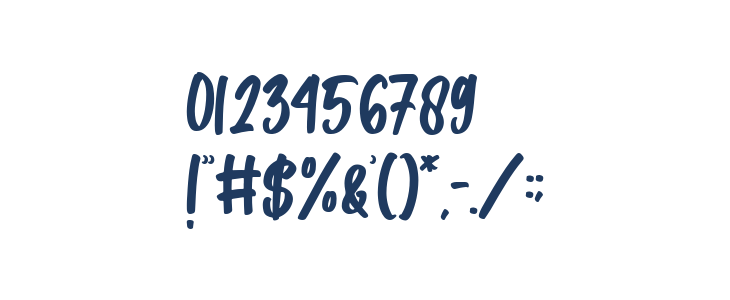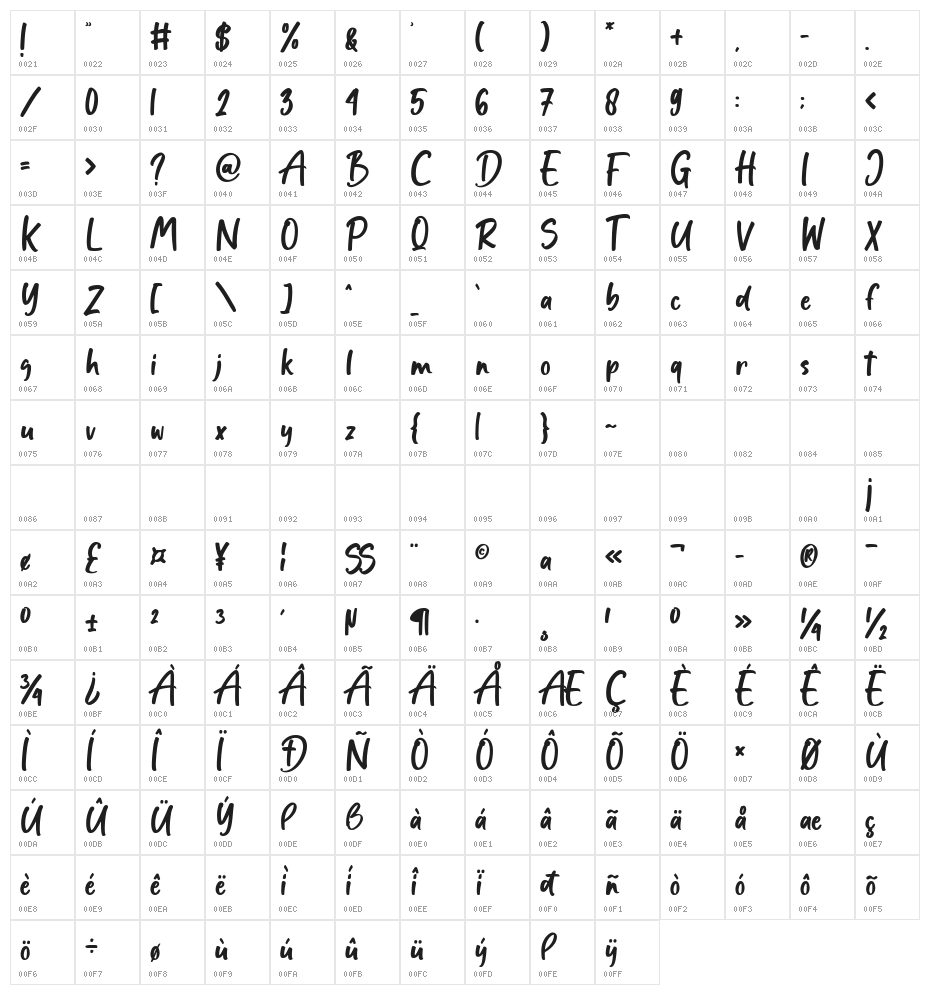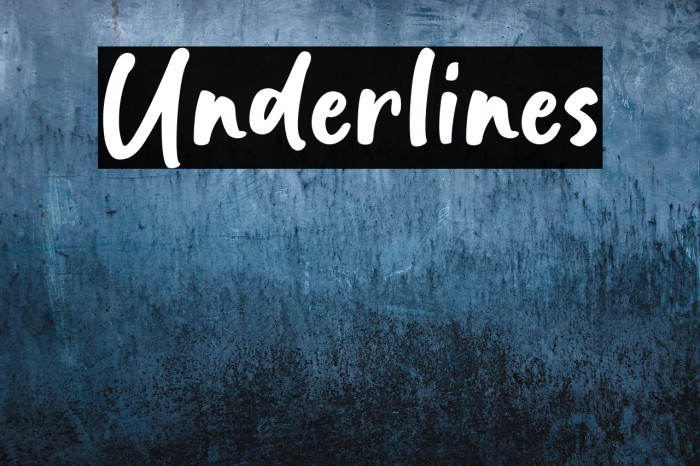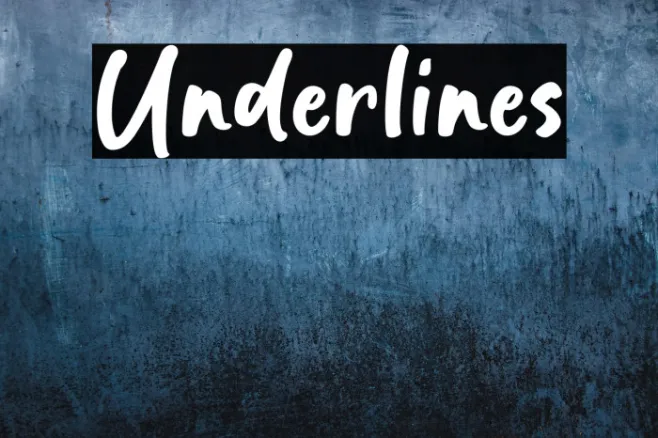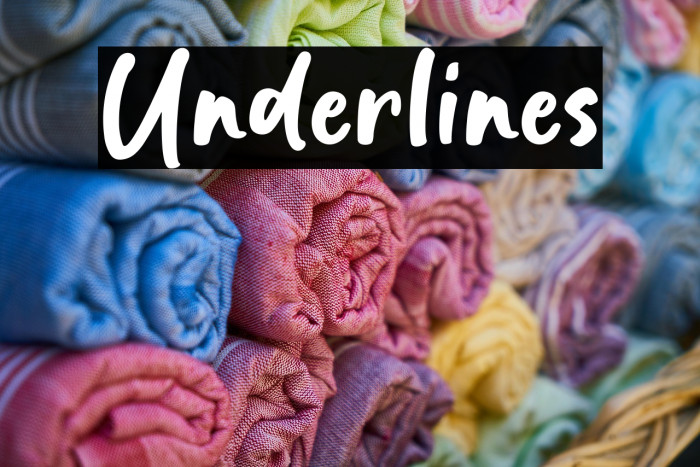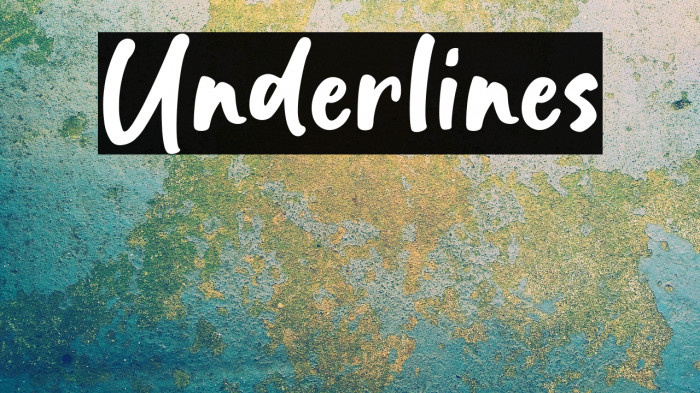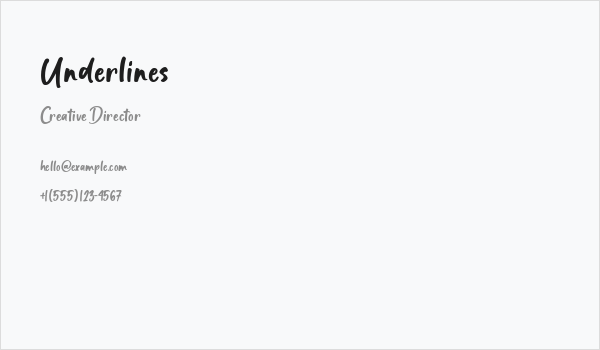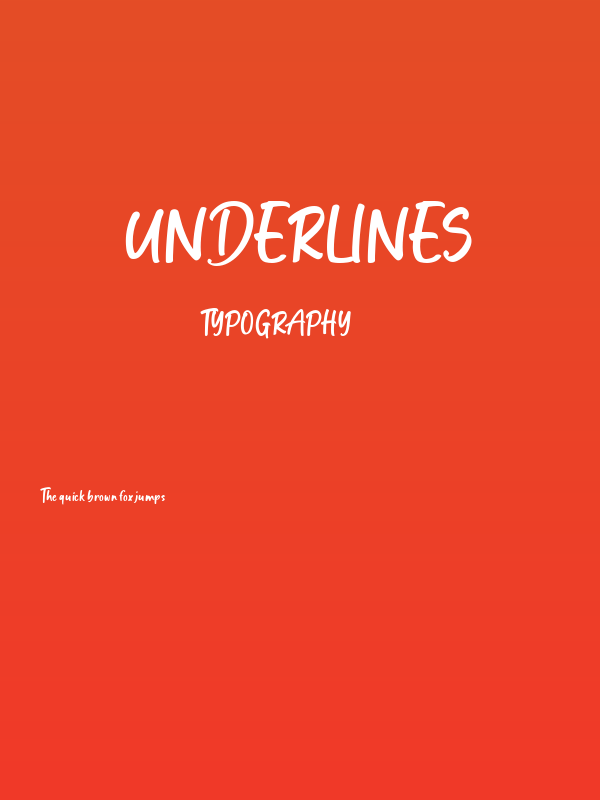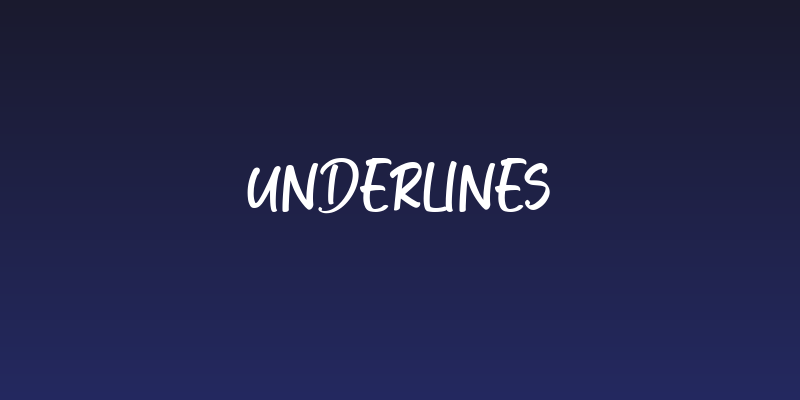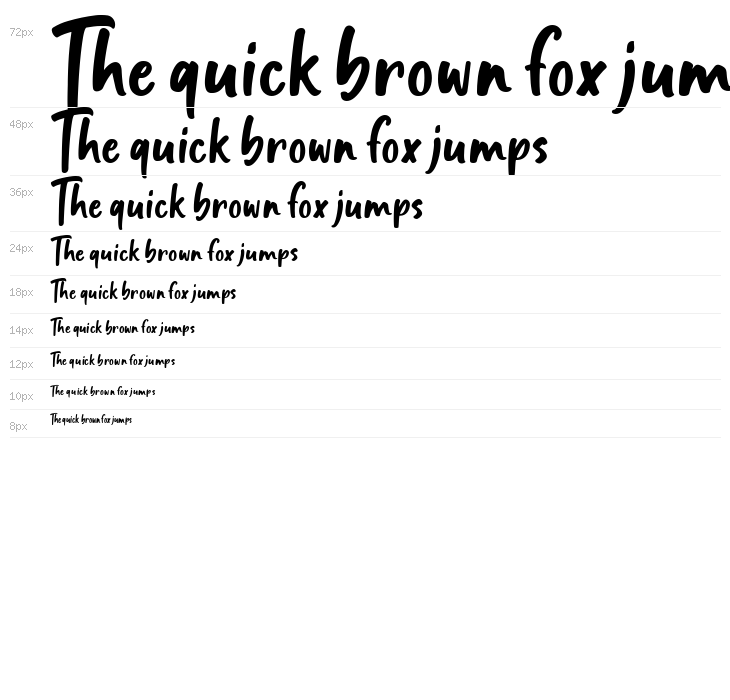
Underlines Font
Underlines Description
This font features a bold and expressive handwritten style, characterized by its fluid and dynamic strokes. The letters have a playful and casual appearance, with varying thickness that adds a sense of movement and energy. The uppercase letters are bold and prominent, while the lowercase letters maintain a consistent flow, enhancing readability. Numbers and special characters are crafted with the same lively touch, making them stand out. This font's unique style is perfect for projects that require a personal and informal touch, such as invitations, greeting cards, or creative branding.
| Proposed Projects | Ideal for invitations, greeting cards, creative branding, and personal projects. |